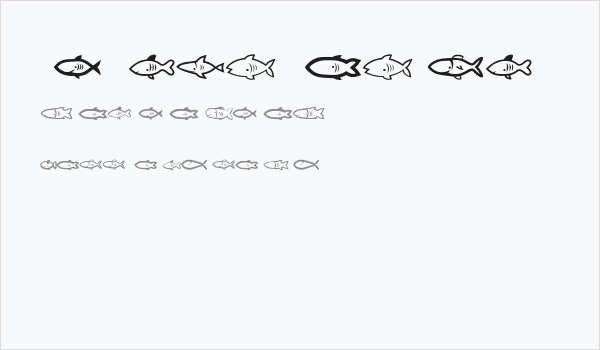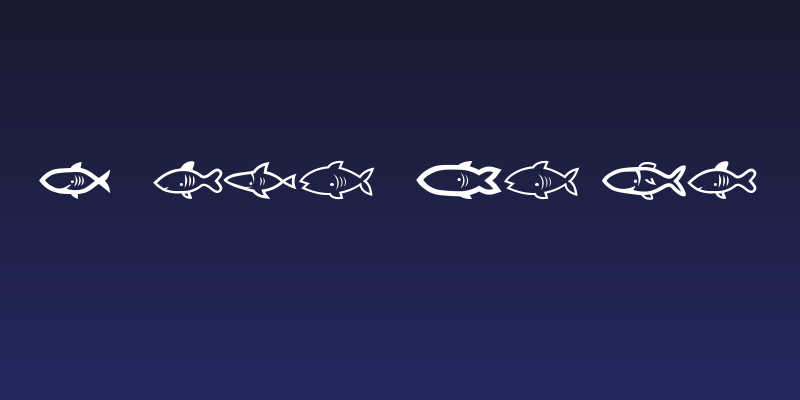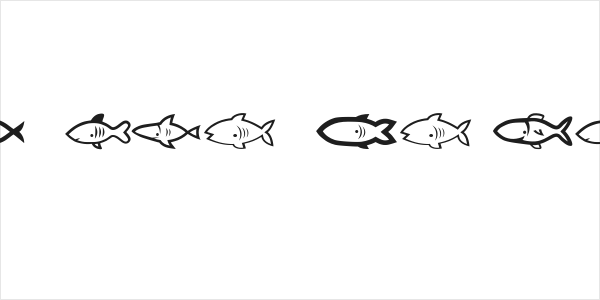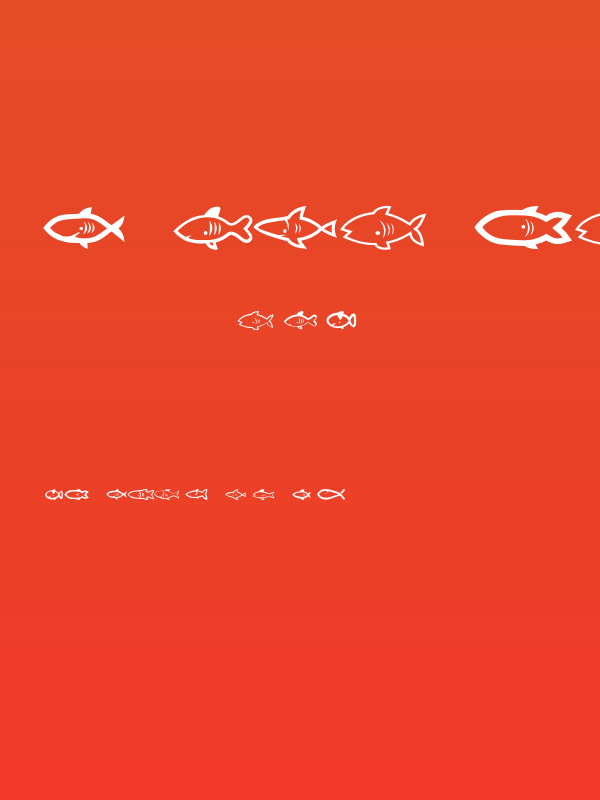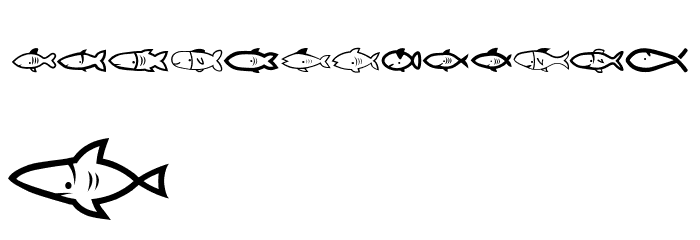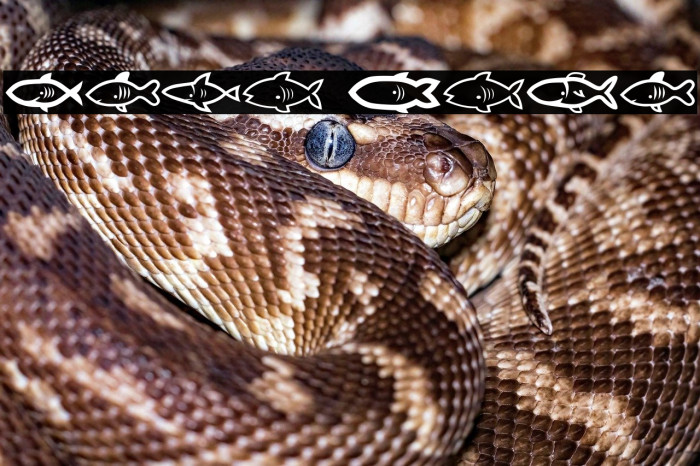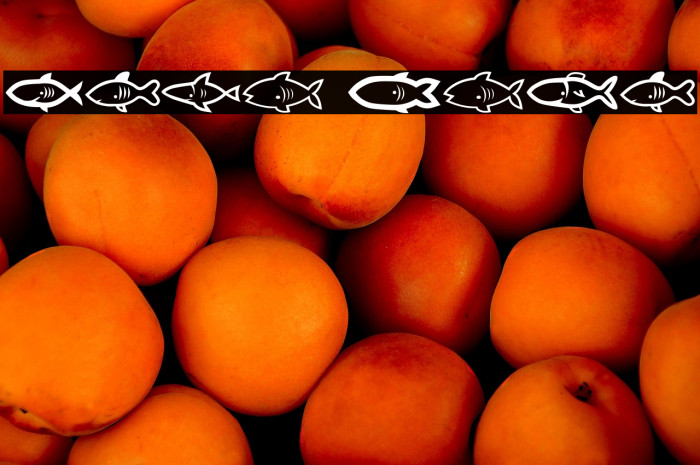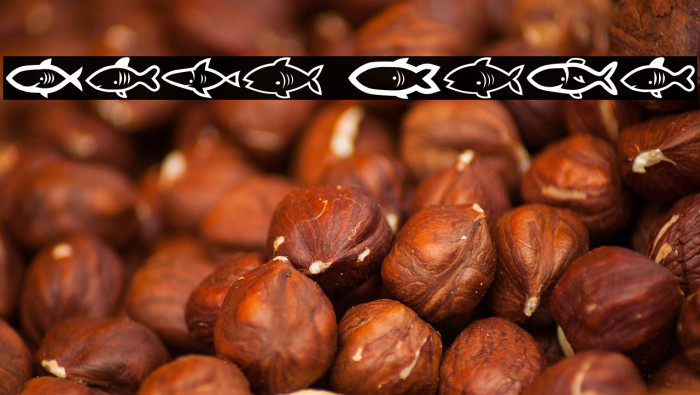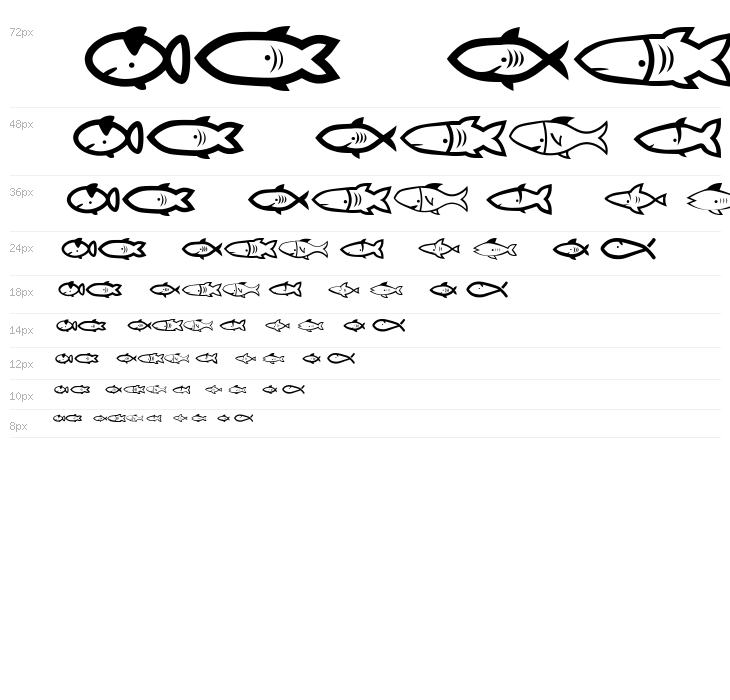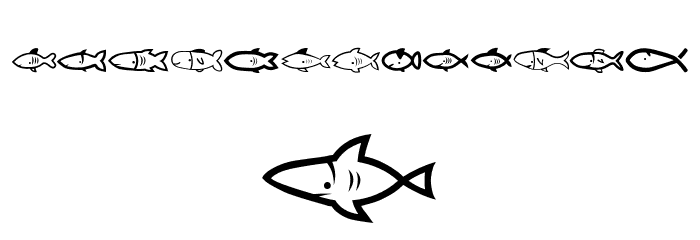
This font features a playful and whimsical design, incorporating fish and shark motifs as characters. Each letter is represented by a stylized fish, with larger shark illustrations used for emphasis or decorative purposes. The design is highly decorative, making it suitable for projects that require a fun and aquatic theme. The characters are evenly spaced, and the overall style is bold and eye-catching, perfect for capturing attention in creative projects.
| Proposed Projects | Ideal for children's books, aquatic-themed event posters, playful branding, and educational materials related to marine life. |